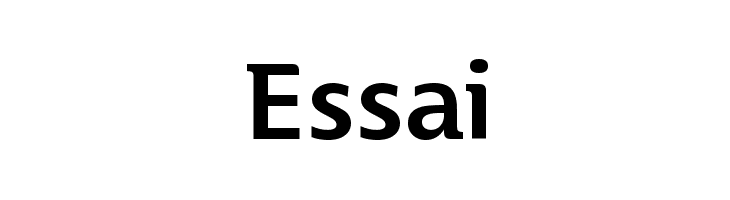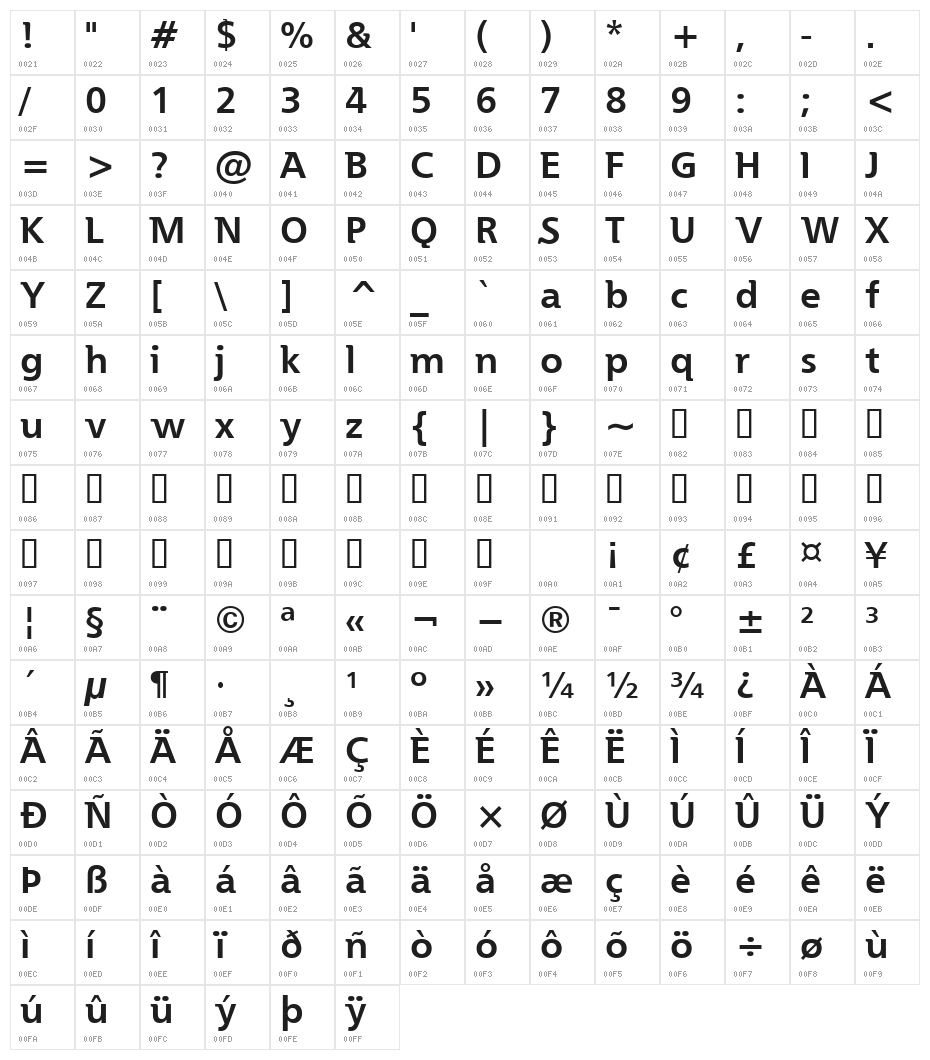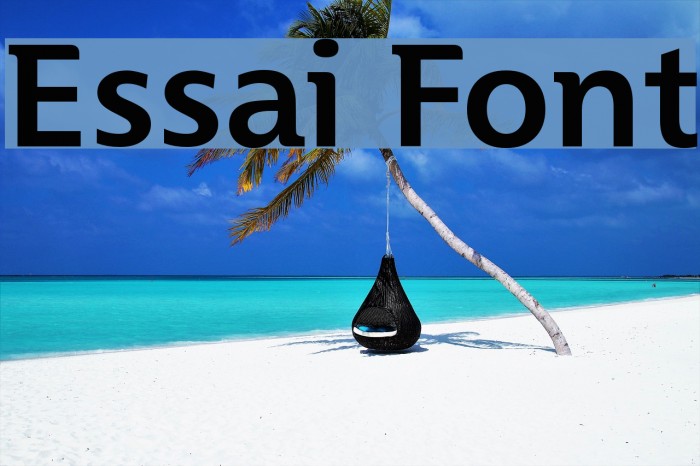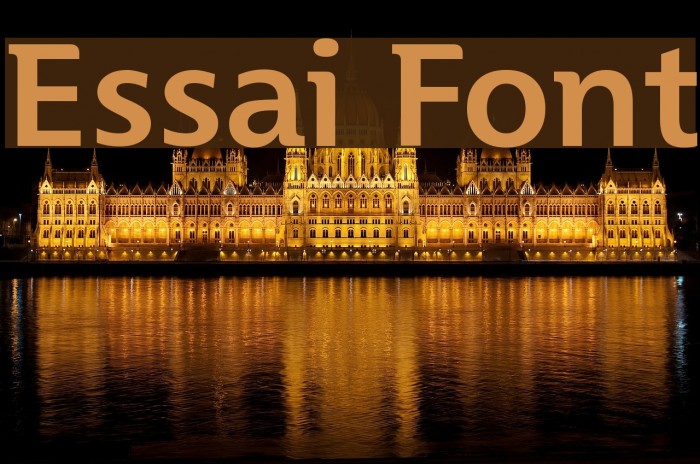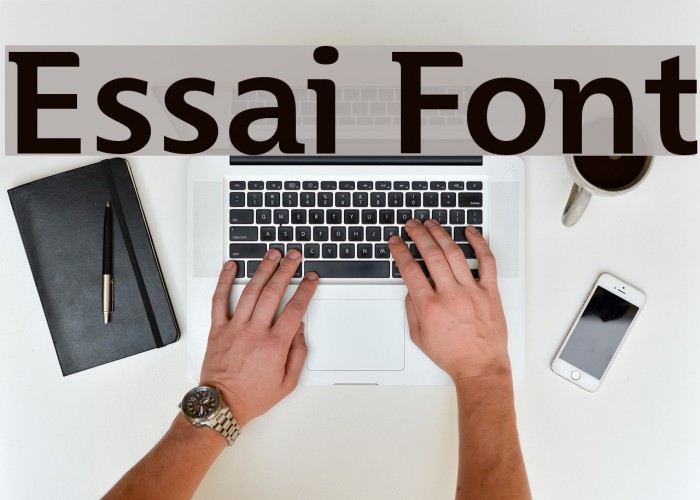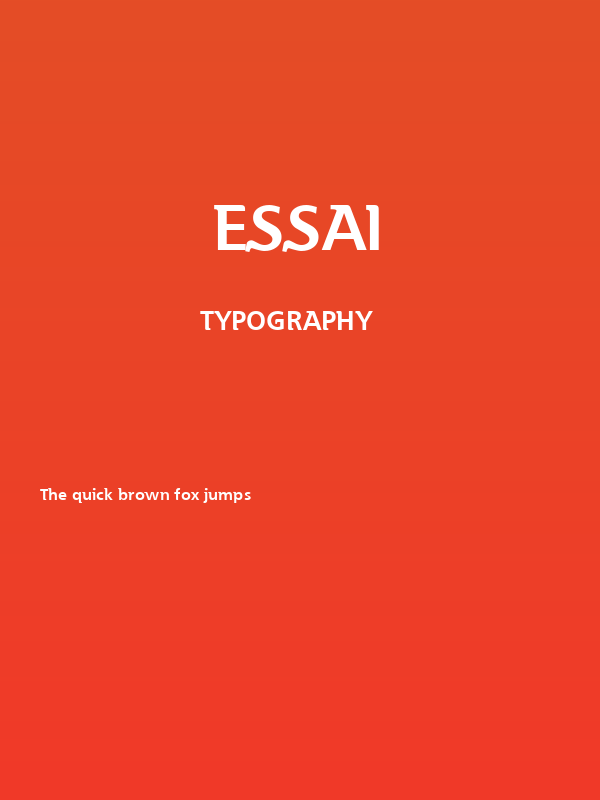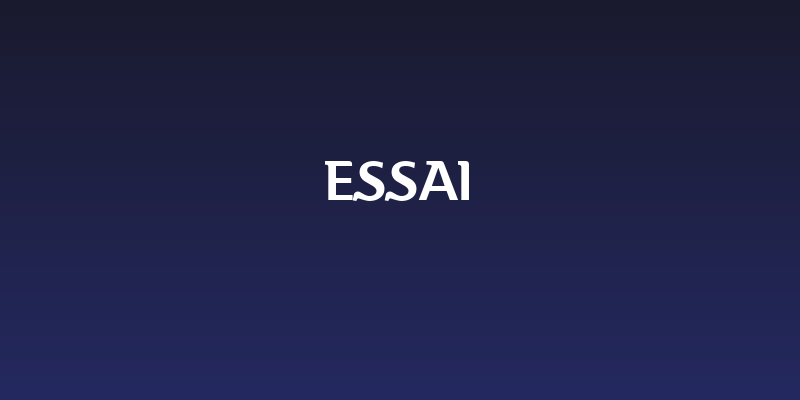
Essai Font
Essai Description
This font features a clean and modern sans-serif design, characterized by its bold and uniform stroke widths. The characters are well-balanced with a slightly condensed appearance, providing a strong and assertive look. The uppercase letters are tall and commanding, while the lowercase letters maintain a consistent height, enhancing readability. The numerals are clear and distinct, matching the overall style of the alphabet. Special characters are well-integrated, maintaining the font's cohesive aesthetic. This font is versatile, suitable for both digital and print media, offering a professional and contemporary feel.
| Use Case | Headlines, Logos, Digital content |
| Proposed Projects | Ideal for branding, advertising, headlines, and digital content where a modern and professional appearance is desired. |